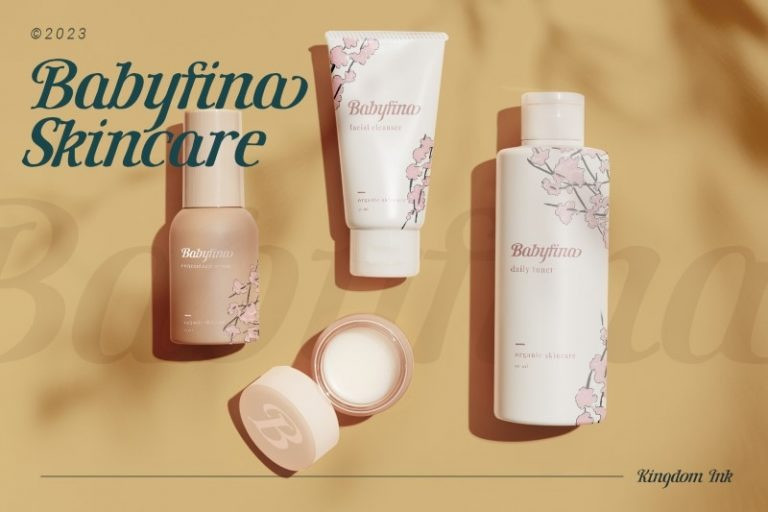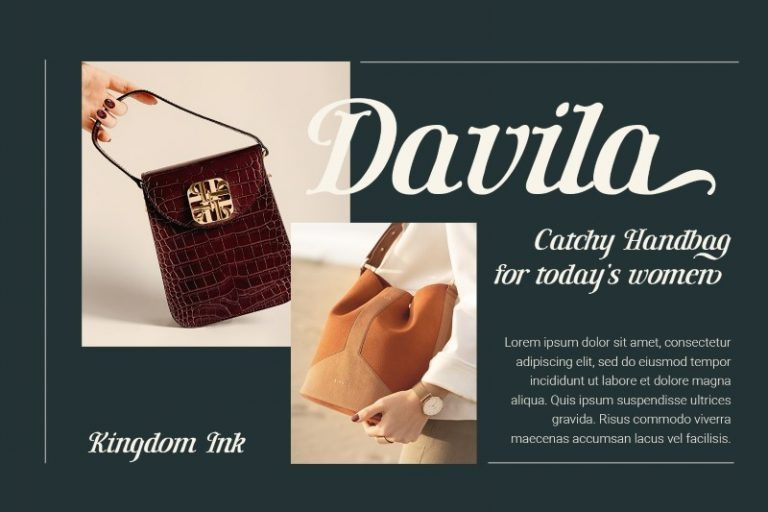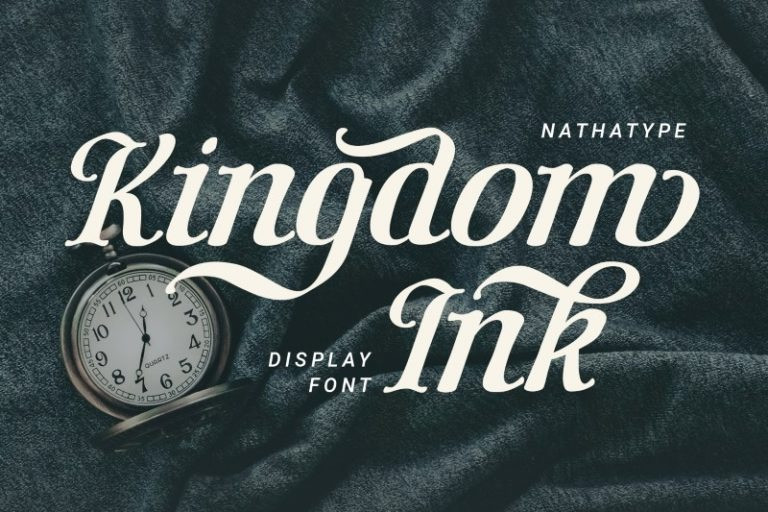
Kingdom Ink Font
Kingdom Ink Display Font, a display font carefully crafted by our professional designers for the highest quality font. Its bold, prominent characters are perfect to add effects and certain characters to your designs. In addition, the professional, outstanding appearances of this font convey that it will leave amazing impressions to your audience. Some of the letters have swinging end wipes to look visually interesting. On the other hand, its aesthetic, low contrast shapes are inapplicable for small text sizes. Furthermore, you can enjoy the available features here.